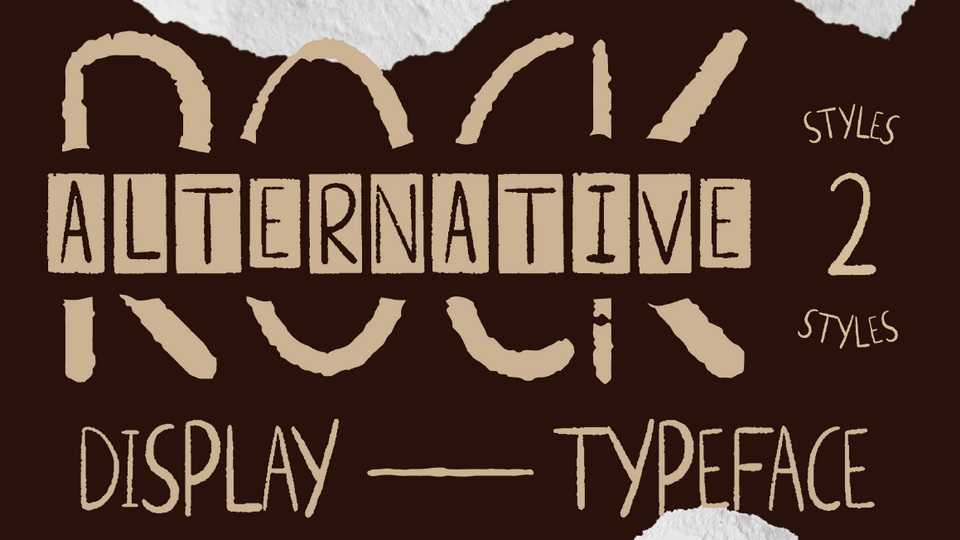
Download Alternative Rock font, a trendy display typeface inspired by summer music festival vibes. This hand drawn font will give a boost of adrenaline and elevate any of your creative projects.
Designer: Jetsmax Studio